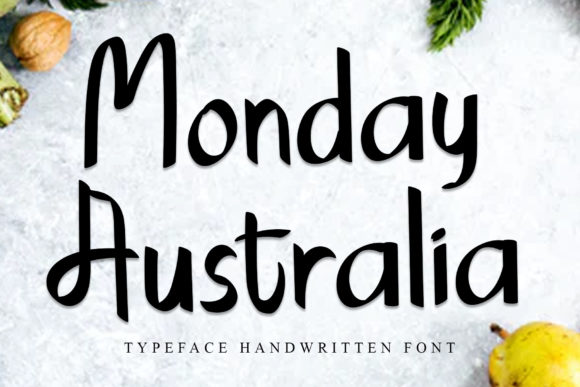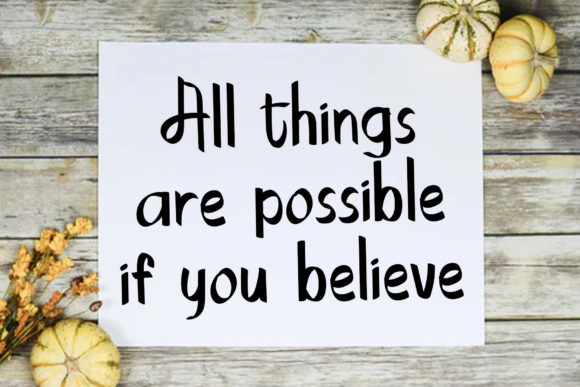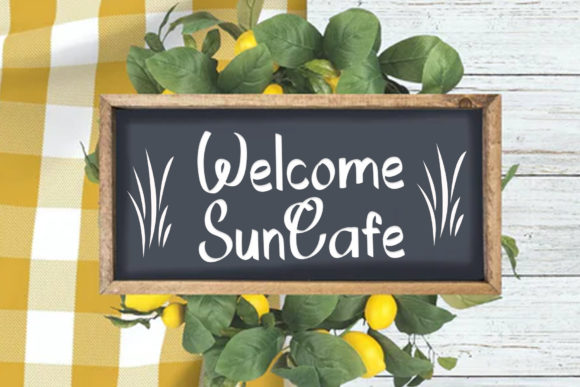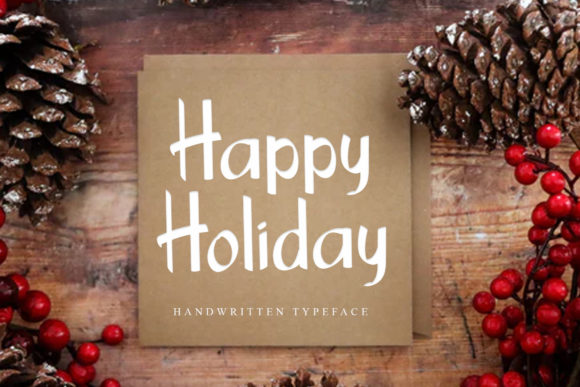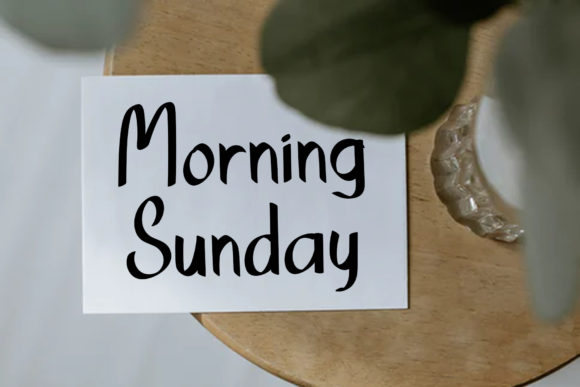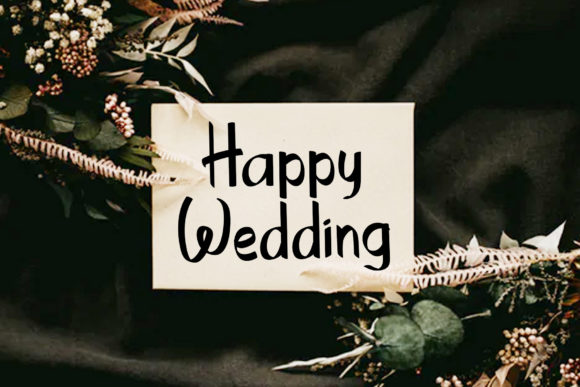
Monday Australia Font
About Monday Australia Font
Monday Australia is a fun and friendly handwritten font. With an elegant and friendly style, this typeface can make any creation seem authentic and attractive!